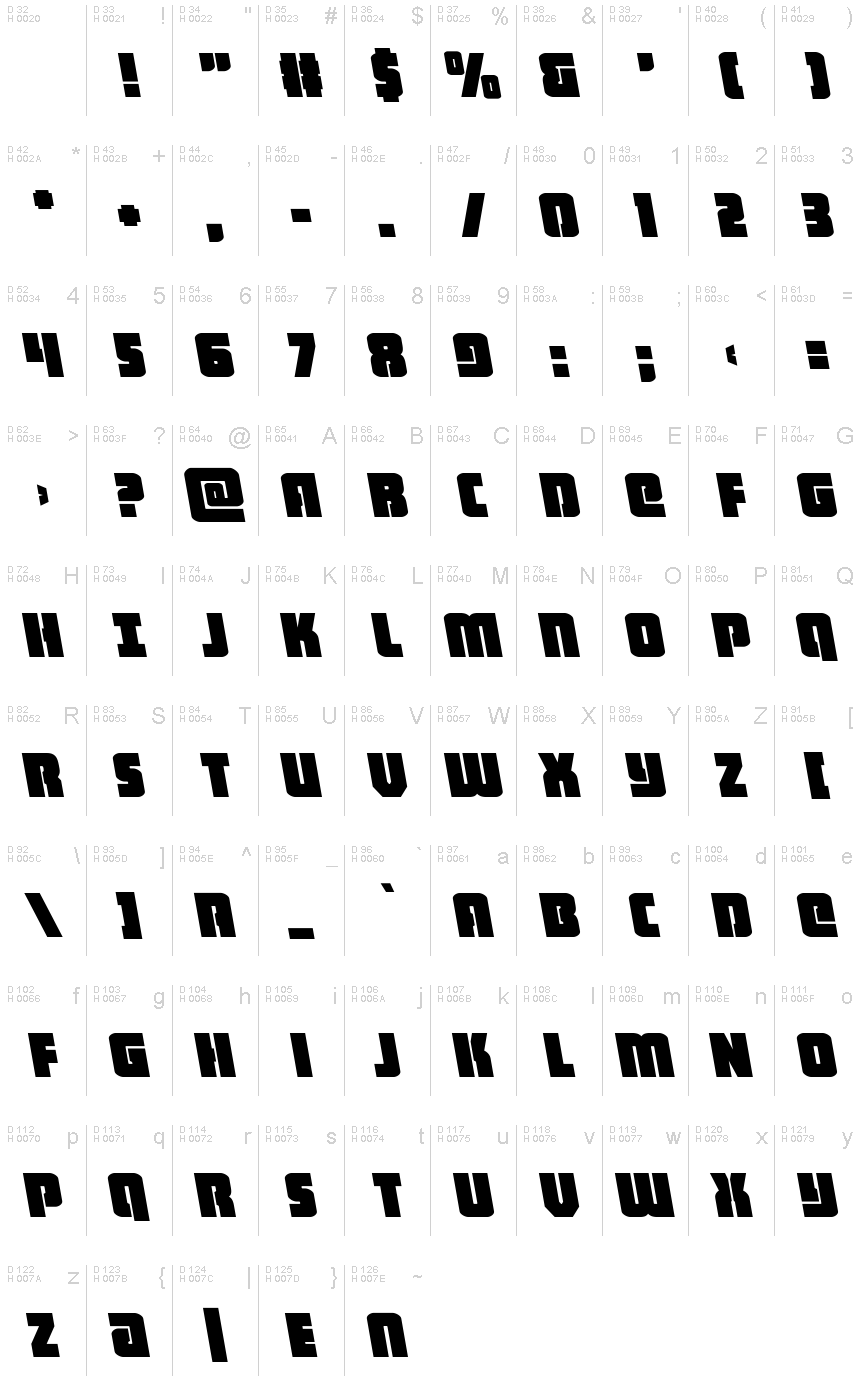
Heavy Falcon Semi-Leftalic
Heavy Falcon Semi-Leftalic, crafted by Iconian Fonts, is a display typeface that commands attention. Its bold weight and condensed form evoke a sense of strength and precision, perfect for modern design endeavors. The semi-leftalic style adds a unique twist, imbuing the letters with forward movement that suggests innovation and dynamism.
Visually striking with its futuristic aesthetic, Heavy Falcon Semi-Leftalic excels in applications requiring bold headlines or titles. It’s ideal for posters, logos, science fiction themes, and any project aiming to convey cutting-edge sophistication. This typeface transforms ordinary text into an eye-catching statement with its sleek lines and powerful presence.